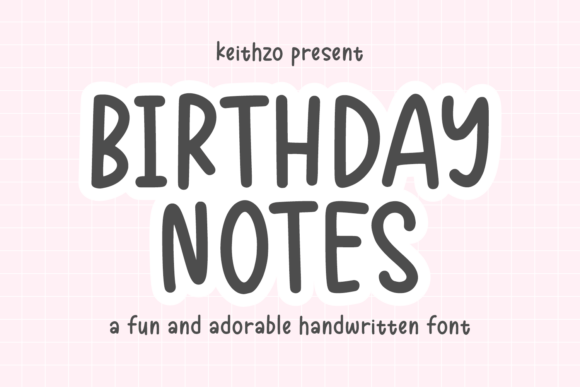
The Joy of Designing with Birthday Notes Font
Have you ever been in the middle of a design project, and suddenly, you’re stuck on finding the perfect font? I recall a particularly stressful experience when a client requested a custom birthday card design. I spent hours scouring through font libraries, but nothing seemed quite right – until I stumbled upon Birthday Notes. This delightful display font embodies fun and playfulness, making it an ideal choice for crafting charming birthday cards, inviting party invitations, and celebratory artifacts.
A Personal Review of Birthday Notes
I’m excited to share my honest review of Birthday Notes, a font that has quickly become a favorite in my design toolkit.
- ✨ Playful and Whimsical Design: Birthday Notes boasts an enchanting style that instantly adds a touch of joy and festivity to any design project.
- ✅ Highly Versatile: Whether you’re creating digital content or printing physical materials, Birthday Notes adapts seamlessly to various mediums.
- 💫 OpenType Features: The font comes with a range of OpenType features, including glyphs and stylistic alternates, allowing for endless creative possibilities.
While Birthday Notes is a fantastic font, there are a few minor considerations to keep in mind:
- 🤔 Legibility at Small Sizes: As with many display fonts, Birthday Notes may lose legibility when scaled down to very small sizes. It’s best used at larger sizes where its playful details can shine.
- ⚠️ Limited Use in Formal Contexts: Due to its playful nature, Birthday Notes might not be suitable for formal or professional designs. Stick to celebratory and creative projects for the best results.
The Designer Inspiration Behind Birthday Notes
Birthday Notes was inspired by the joy and excitement of celebrating special moments. The designer aimed to create a font that captures the sparkle and happiness of birthdays and parties. By infusing playful elements and vibrant energy, Birthday Notes brings any celebration to life.
Q: What makes Birthday Notes unique?
A: Birthday Notes stands out with its playful and whimsical design, making it perfect for celebratory and creative projects.
Q: Is Birthday Notes suitable for digital use?
A: Absolutely! Birthday Notes adapts well to digital mediums and can be used in social media graphics, blog posts, and more.